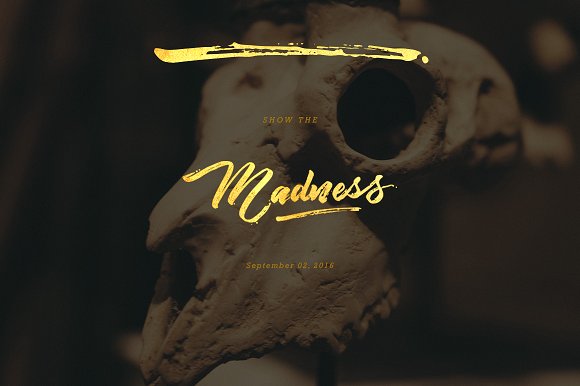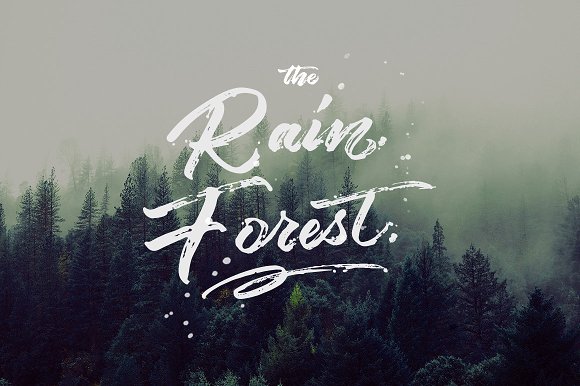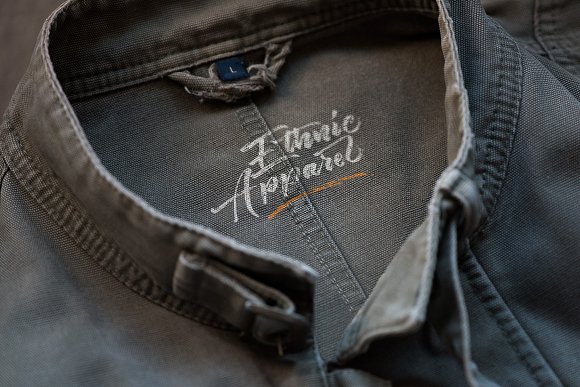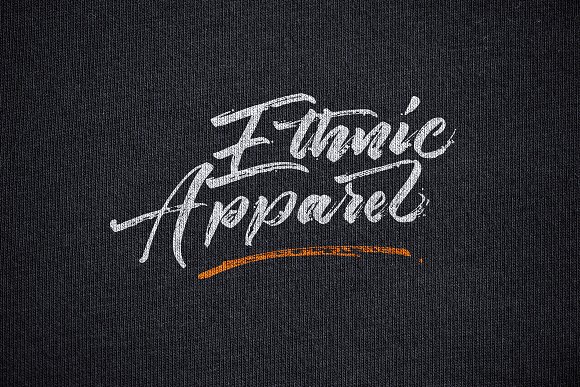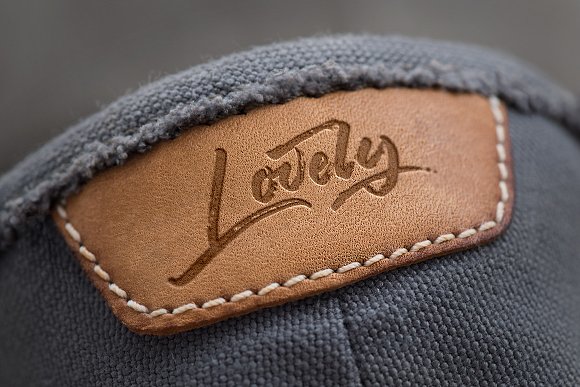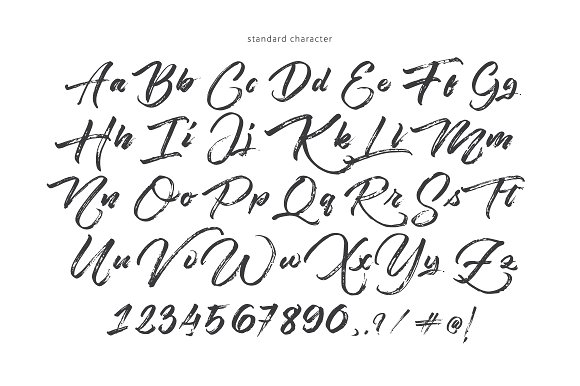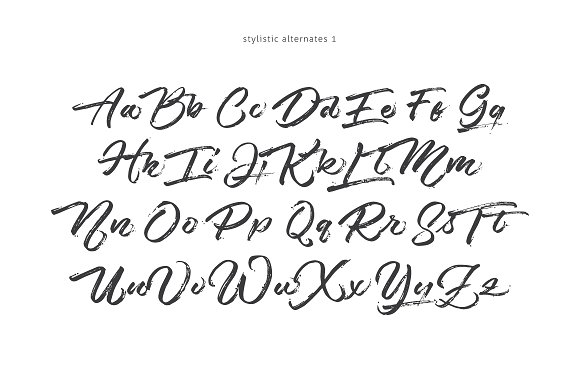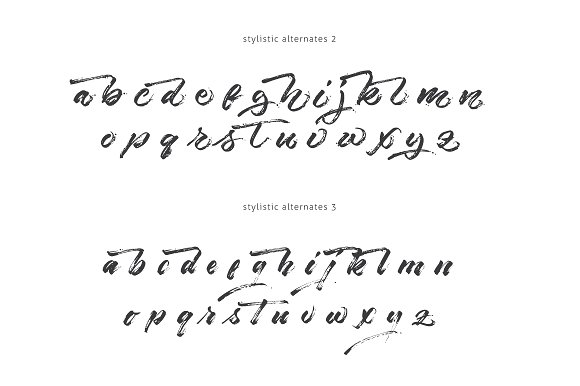
Angelow Font
About Angelow Font
Angelow is a rough brush font that easily allows you to create custom lettering. Works great on clothing or in headlines.